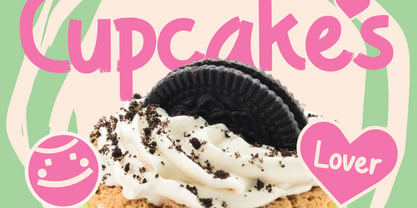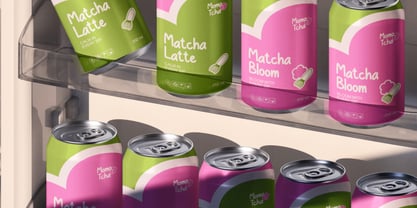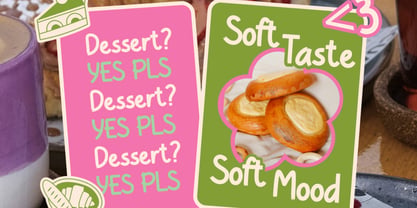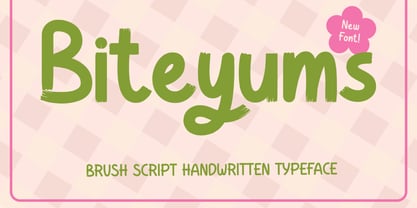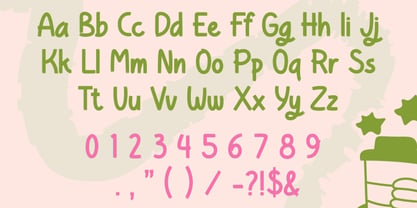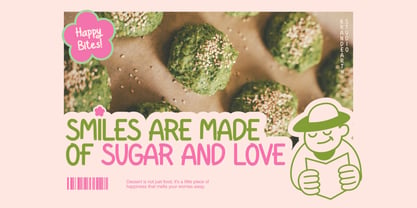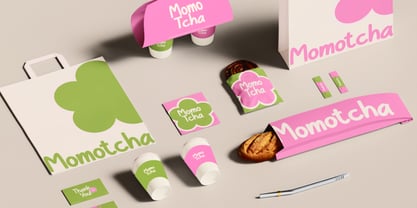
Biteyums
by Brandearth
The Biteyums Font Family was designed by Moch Rasjid Wiyono and published by Brandearth. Biteyums contains 1 styles. More about this family
Biteyums is a fun and cheerful handwritten font with a brush script style and playful personality. It features smooth curves, soft strokes, and charming irregularities that mimic natural handwriting, giving it a warm and inviting look. Designed for food branding, packaging, cute logos, and children’s products, Biteyums adds a handmade flavor to any visual. This font includes uppercase and lowercase letters, numbers, and punctuation making it perfect for digital and print use. Relevance and Use Cases is perfect for food packaging, kids product branding, cafe menu design, candy and sweets branding, bakery signage, Instagram quotes, handmade product labels, YouTube thumbnails, mom & baby product packaging, pastel-themed graphics, educational worksheets, journaling templates, lifestyle blog headers, cheerful printable designs.
Designers: Moch Rasjid Wiyono
Foundry: Brandearth